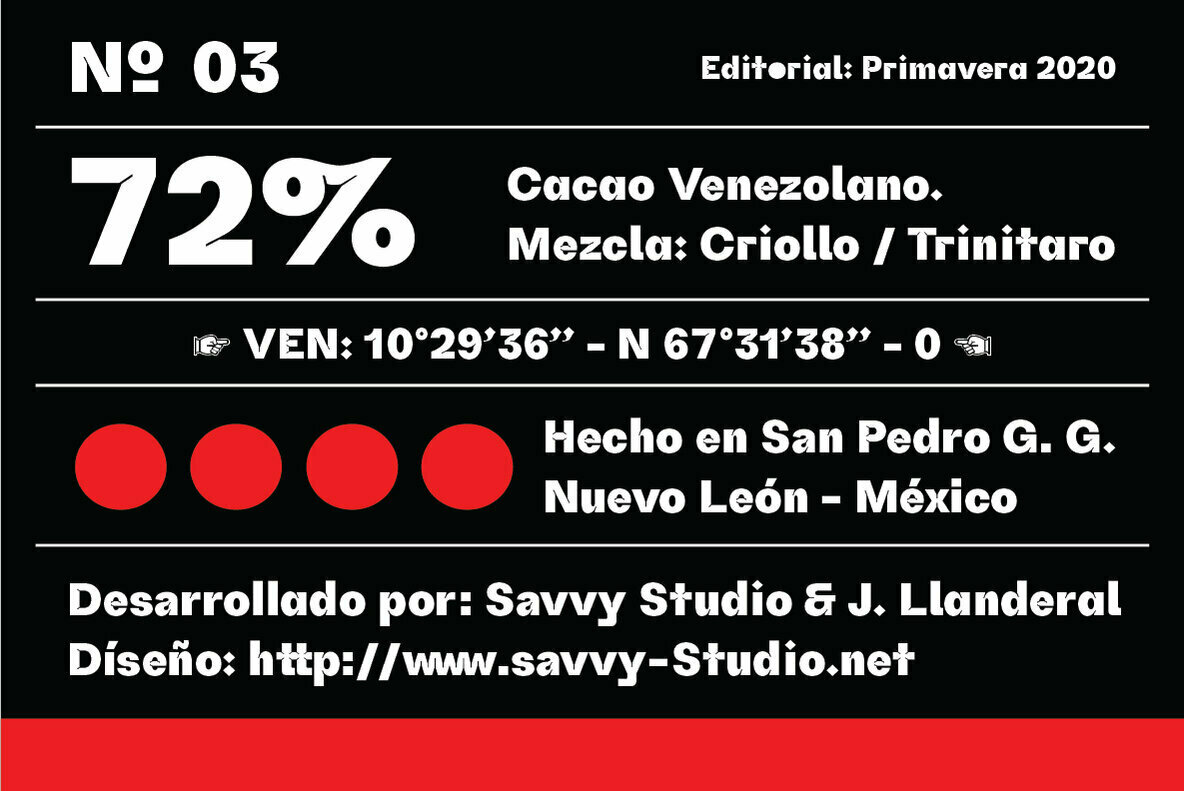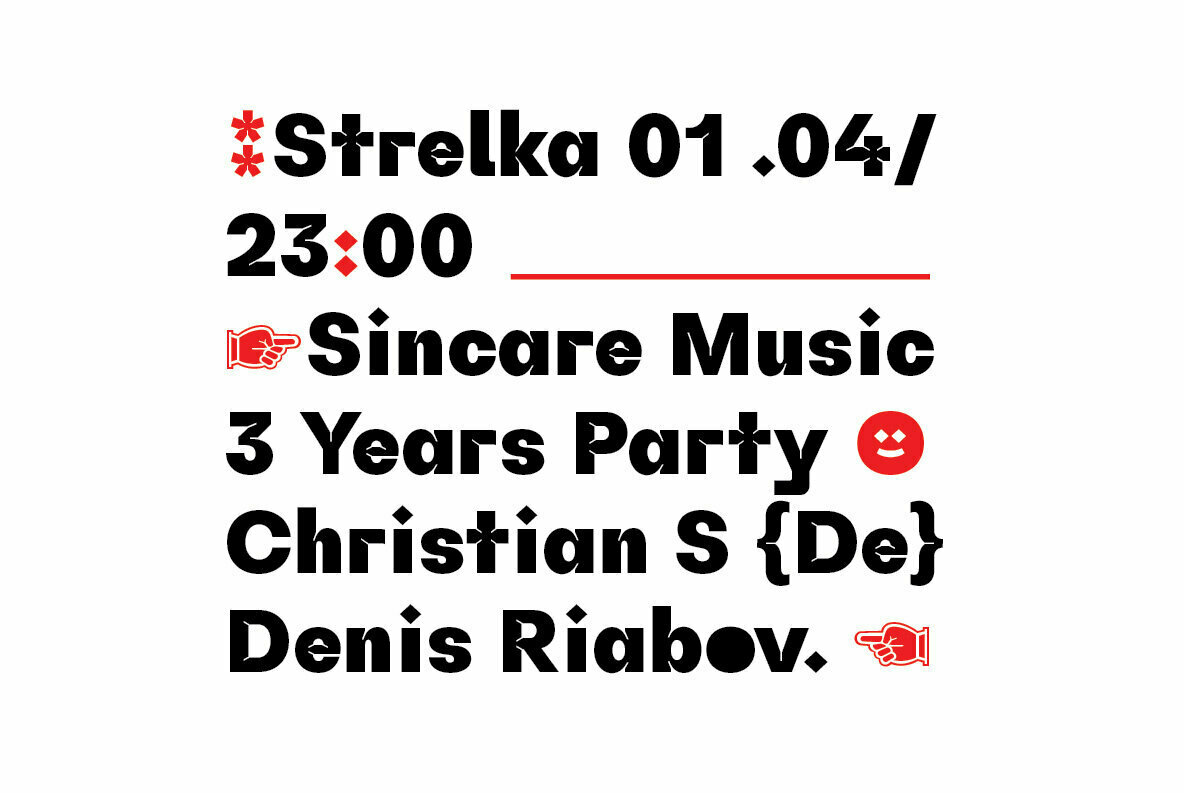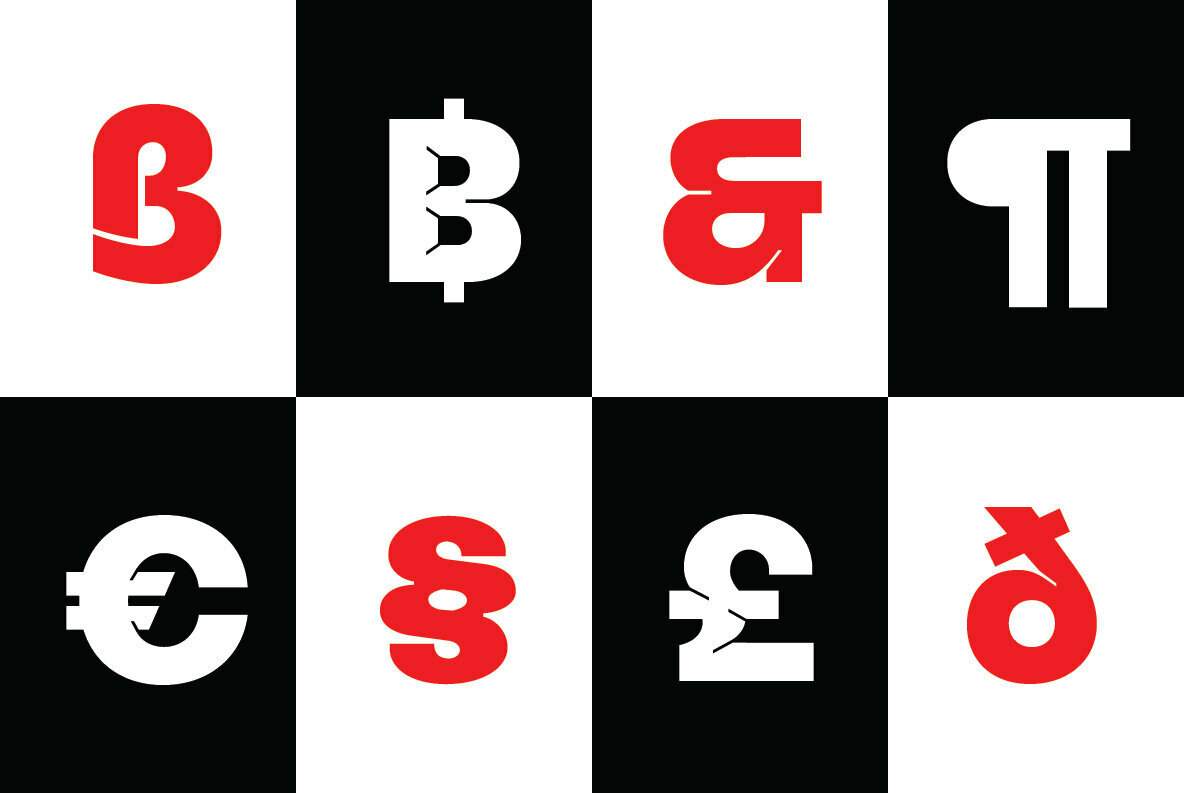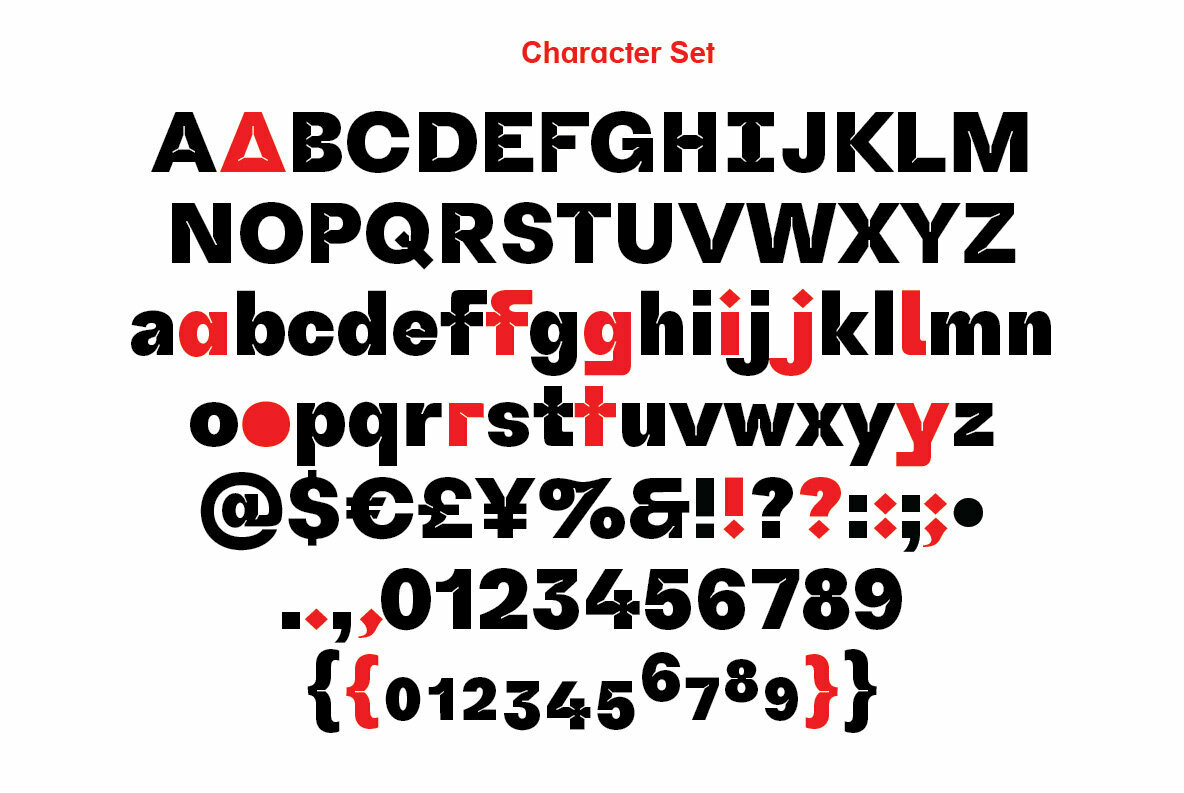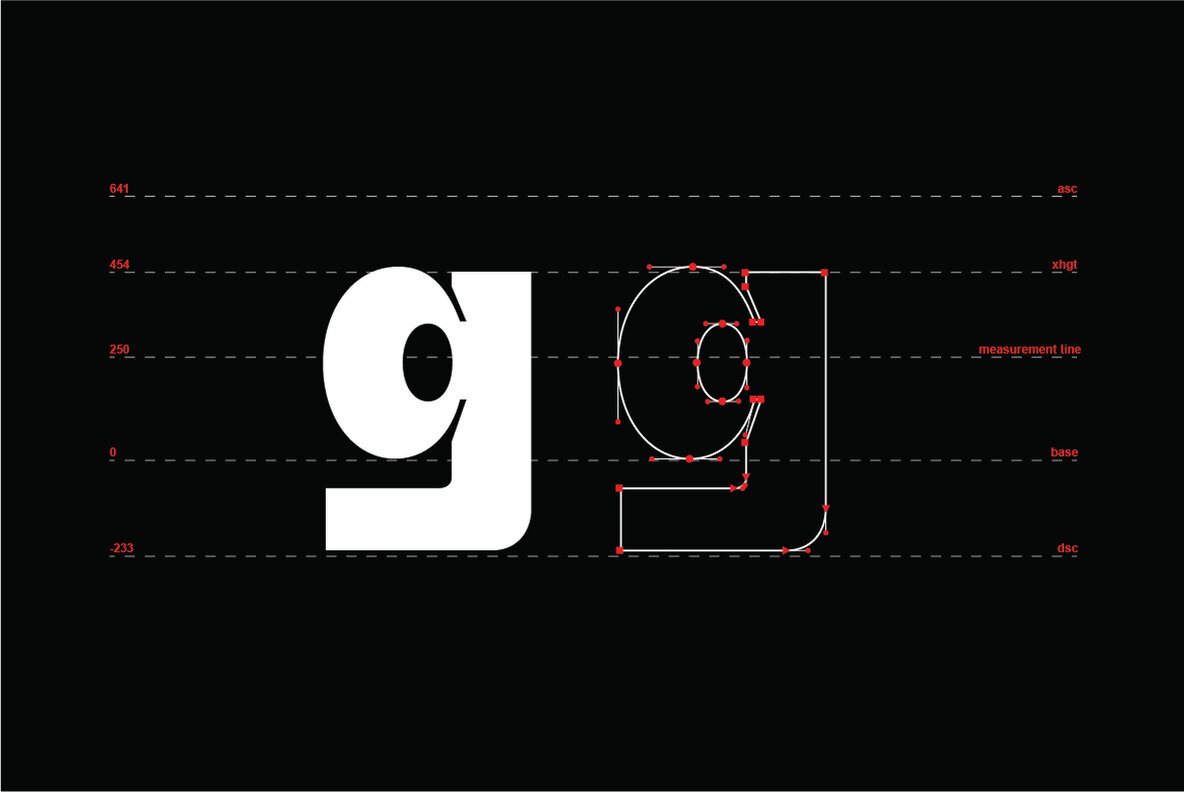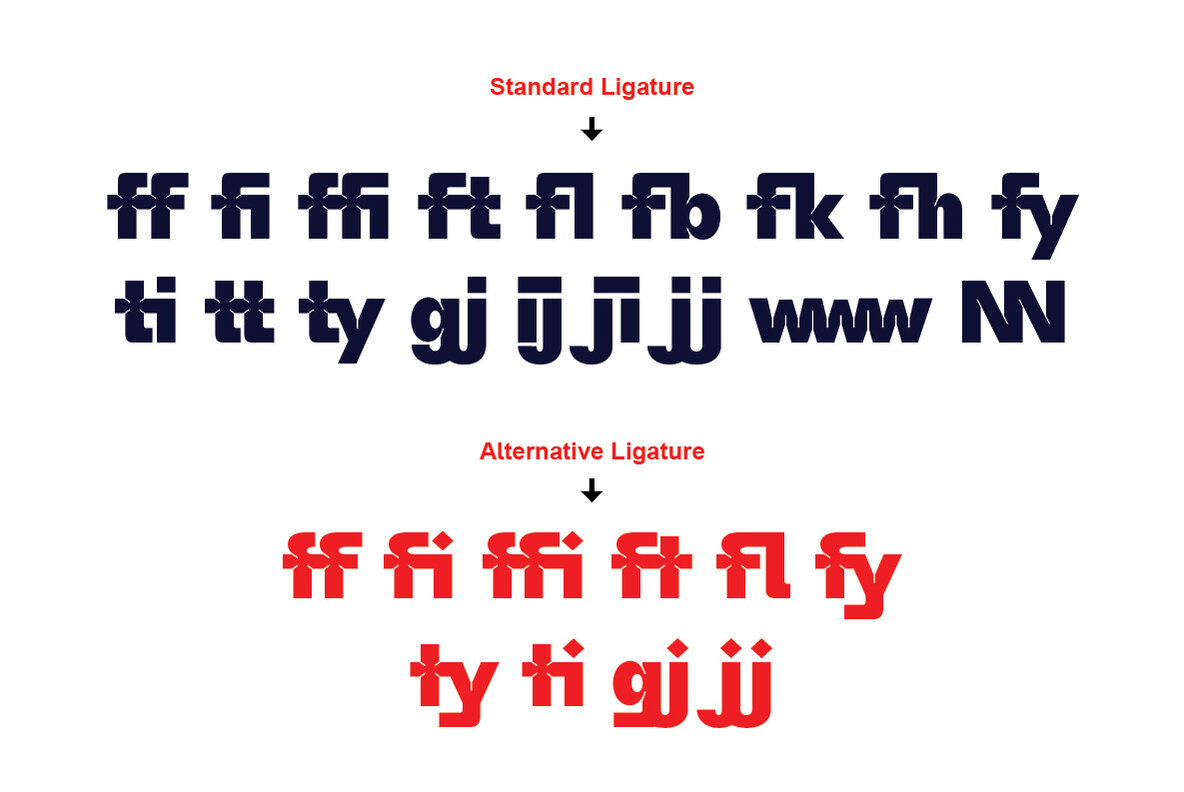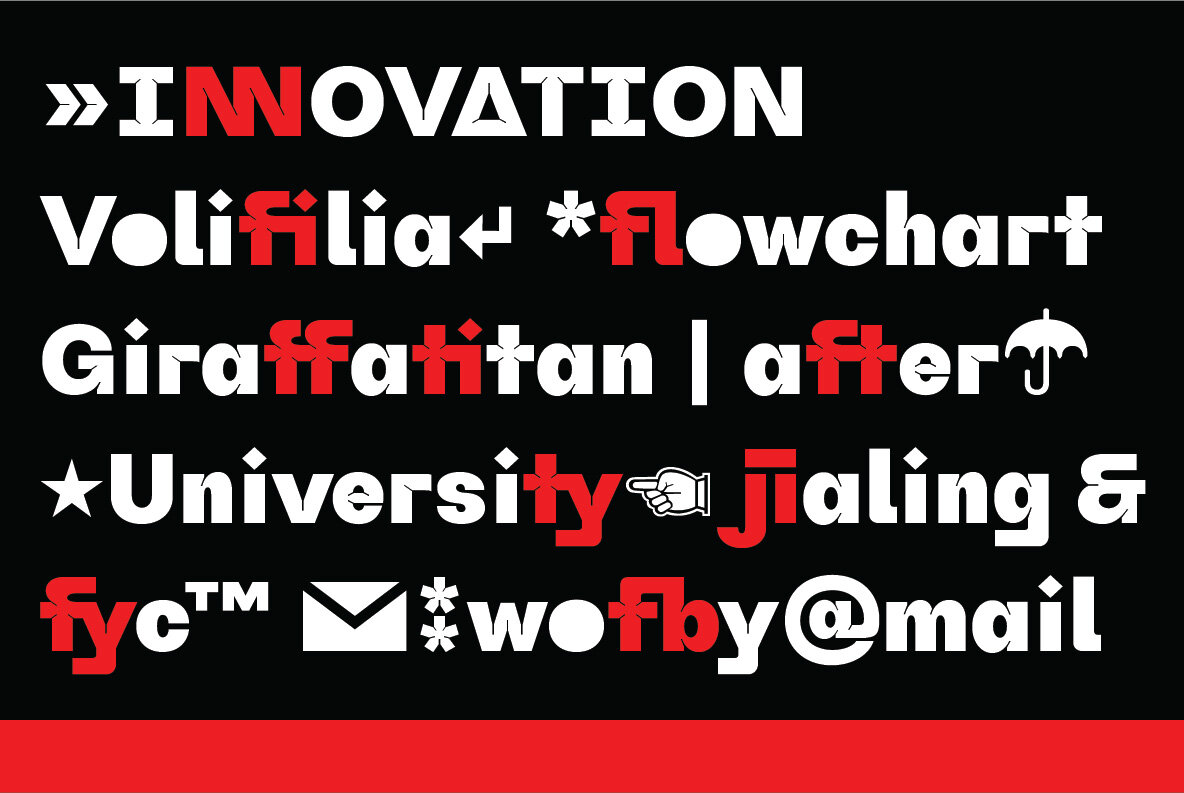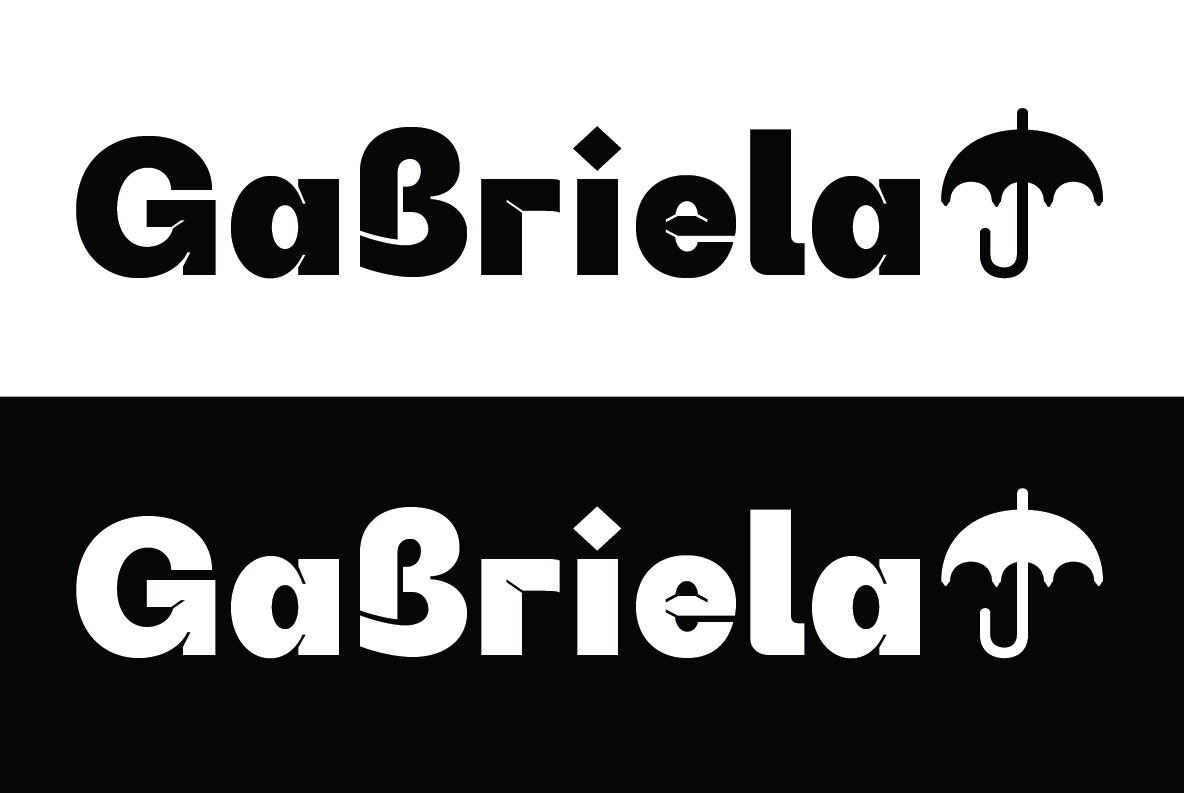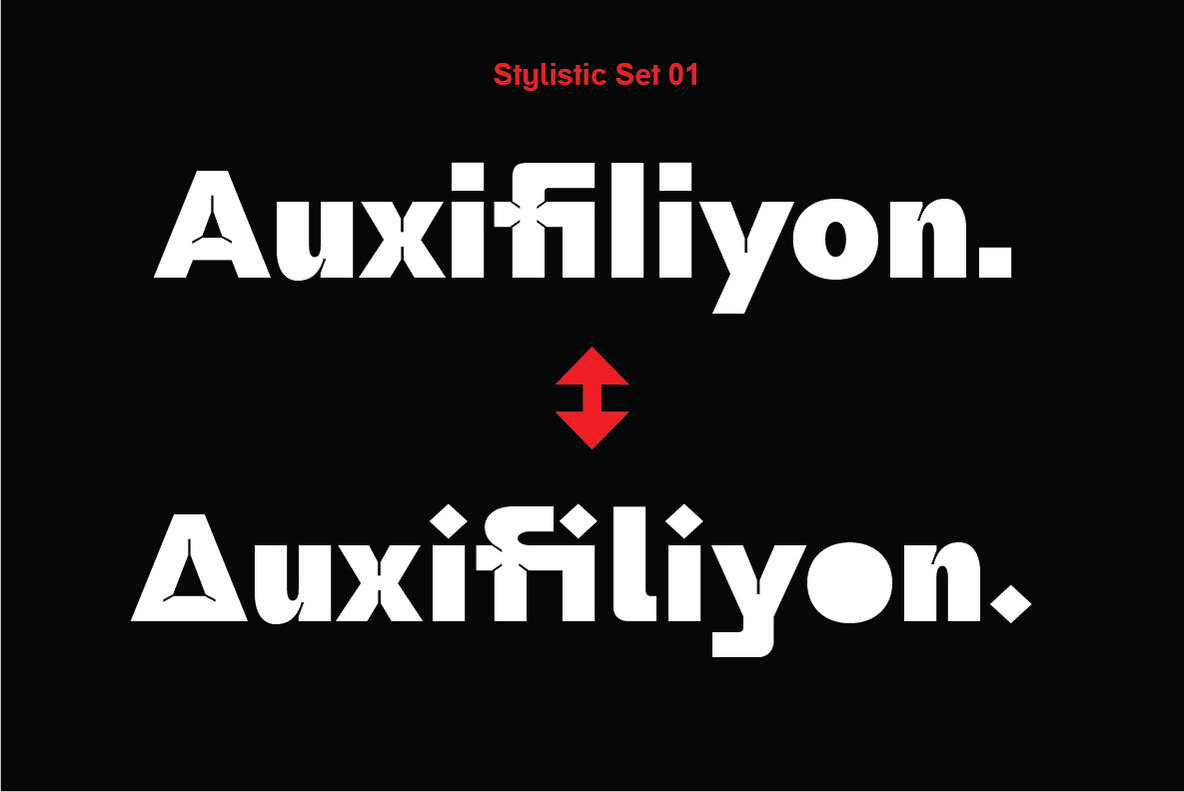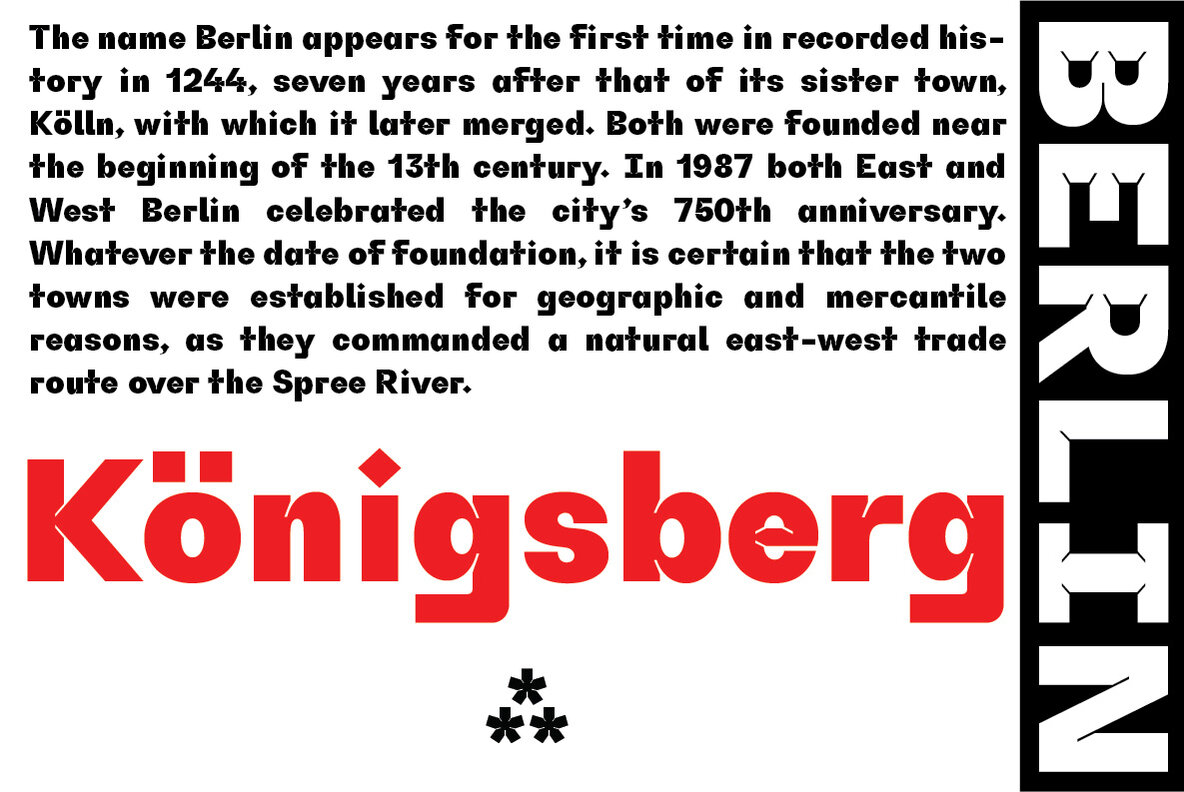
Griftone Font
Griftone Regular
Griftone is a strong and modernist display typeface designed for use in large size. Inspired by style design that is a currently popular. Griftone have some letters and ligatures with an alternative style to facilitate you in determining the letter that fits your design.
Griftone is perfect use for headlines, poster, cover books, t-shirt, logotype and all you needs of every idea that you will pour in this modern era.
Griftone was build 520 glyphs with numbers, punctuation, symbol and support +75 languages.